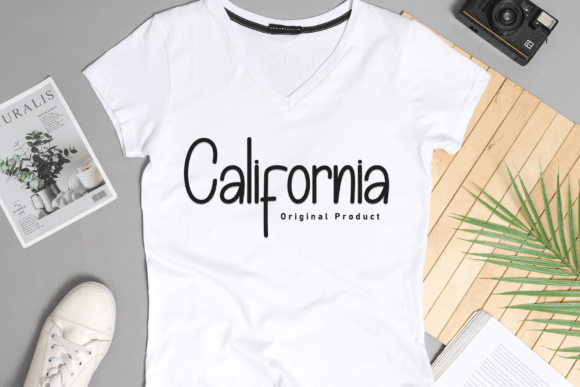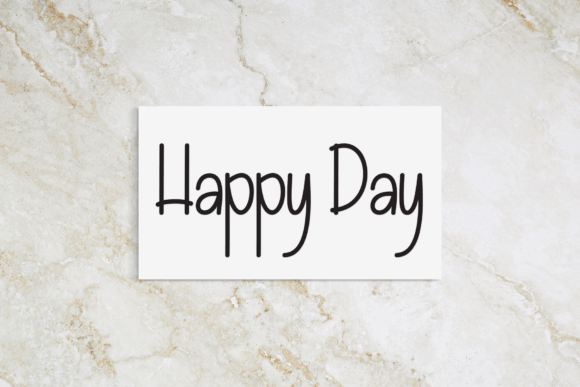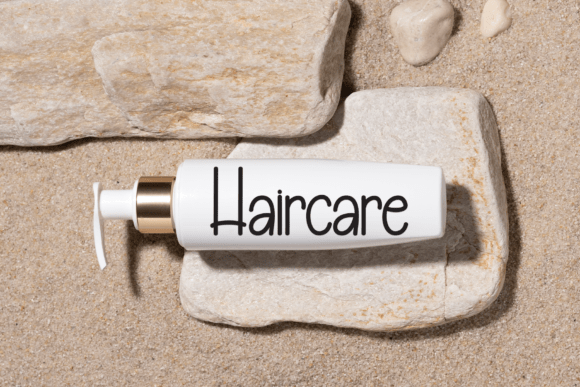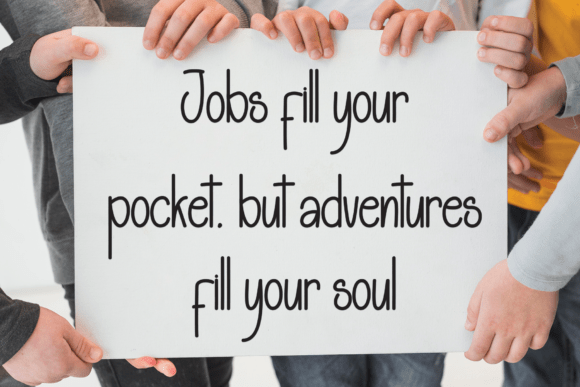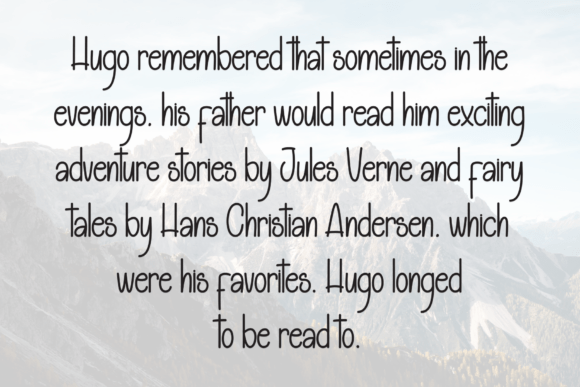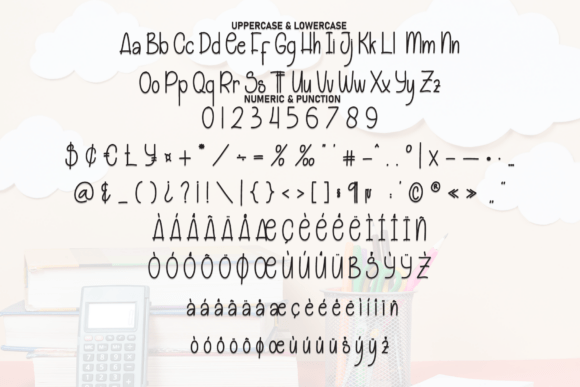
Getting Ready for Summer Fun with the Perfect Font
As the warm weather approaches, we’re all itching to ditch our heavy textbooks and dive into the world of creative projects. There’s something about the carefree spirit of summer that makes us want to unleash our inner artists and designers. Whether you’re planning a backyard BBQ, a beach party, or a fun event, the right font can make all the difference in setting the tone for a memorable celebration.
That’s where the Bubble Homework Font comes in – a cheerful display font that embodies the essence of summer fun. With its clean lines and easygoing vibe, this font is perfect for creating eye-catching posters, flyers, and branding that screams relaxation and playfulness. For designers, having access to a versatile font like Bubble Homework Font can be a game-changer, allowing you to tap into the laid-back feel of the season and bring your creative projects to life in a more engaging way.
Bubble Homework Font Key Features
- Unique Characteristic: Hand-drawn and playful design, perfect for educational materials and children’s content.
- Font Styles: Includes multiple font styles, such as Regular, Italic, Bold, and Bold Italic, for added versatility.
Bubble Homework Font Review
As a designer, I was excited to dive into the Bubble Homework Font and see what it had to offer. ✨ I was immediately drawn to its playful and whimsical vibe, perfect for educational materials and kids’ content. The font is well-suited for titles and headings, and the various styles (bold, italic, etc.) add a nice touch of visual interest.
One of the things I liked most about this font is its legibility. ✨ Even at smaller sizes, the text remains clear and easy to read, which is essential for educational content. The font also comes with a range of language support, making it a great choice for global audiences.
- ⚠️ The font may be too playful for more formal or professional content.
- ⚠️ Some users may find the font’s irregular shapes and lines distracting or overwhelming.
- ⚠️ The font’s overall style may not be suitable for content that requires a more serious or mature tone.
Overall, I think the Bubble Homework Font is a great choice for educational and kids’ content. It’s fun, engaging, and easy to read. While it may not be the best fit for every project, it’s definitely worth considering for the right type of content.
Use the Bubble Homework Font to create visually appealing and engaging educational materials, such as worksheets, quizzes, and assignments.
Experiment with different font sizes, colors, and styles to create a cohesive and professional look.
Combine the Bubble Homework Font with other design elements, such as images and graphics, to create a unique and effective visual identity.
The Bubble Homework Font is ideal for educational settings, such as schools and universities, where it can be used to create engaging and effective learning materials.
It is also suitable for freelance designers and businesses that specialize in educational design, where it can be used to create a wide range of educational materials.
Alternatives to Bubble Homework Font
Great Vibes is a beautiful, handwritten font perfect for creative projects. It features elegant, flowing lines and is ideal for use in titles, headings, and quotes. It’s a great choice for designers who want to add a touch of personality to their work.
Compared to Bubble Homework Font, Great Vibes has a more refined and sophisticated look. While Bubble Homework Font has a playful, bubble-like quality, Great Vibes is more elegant and sophisticated.